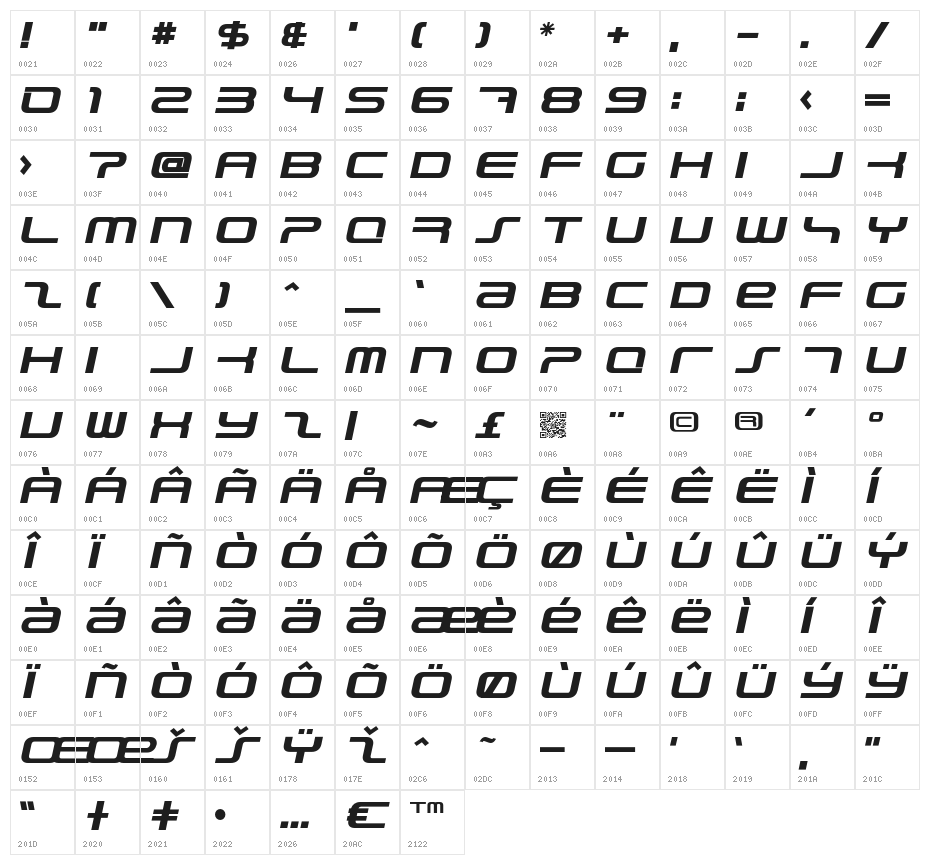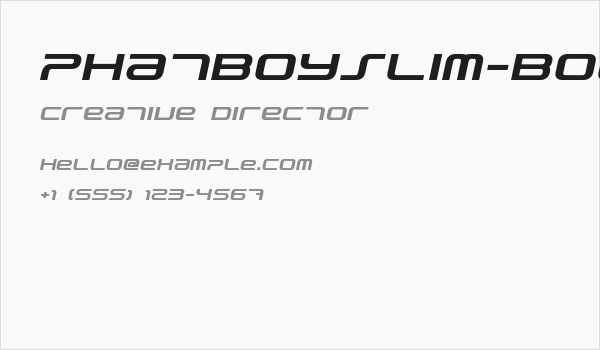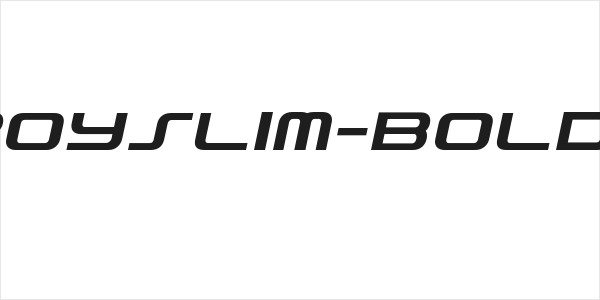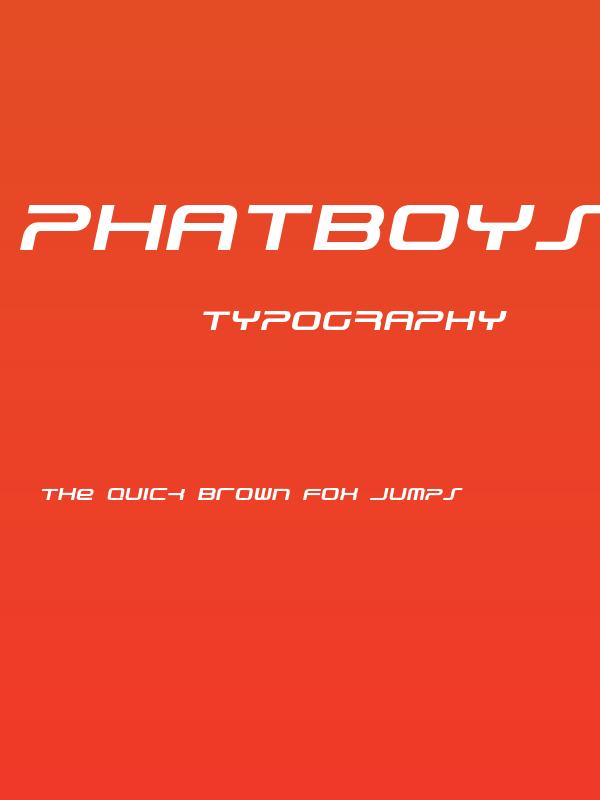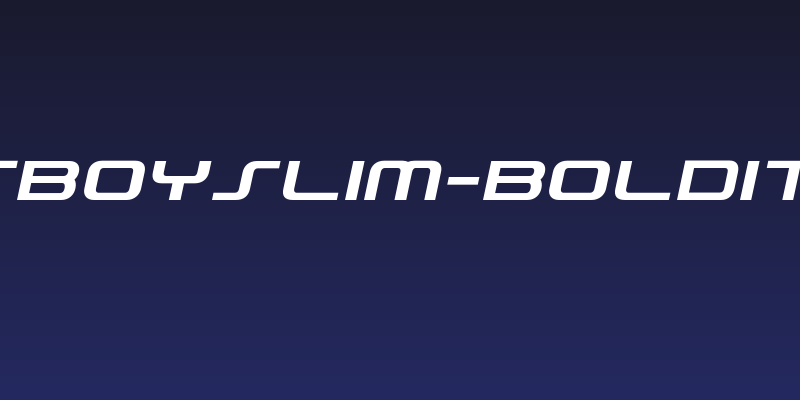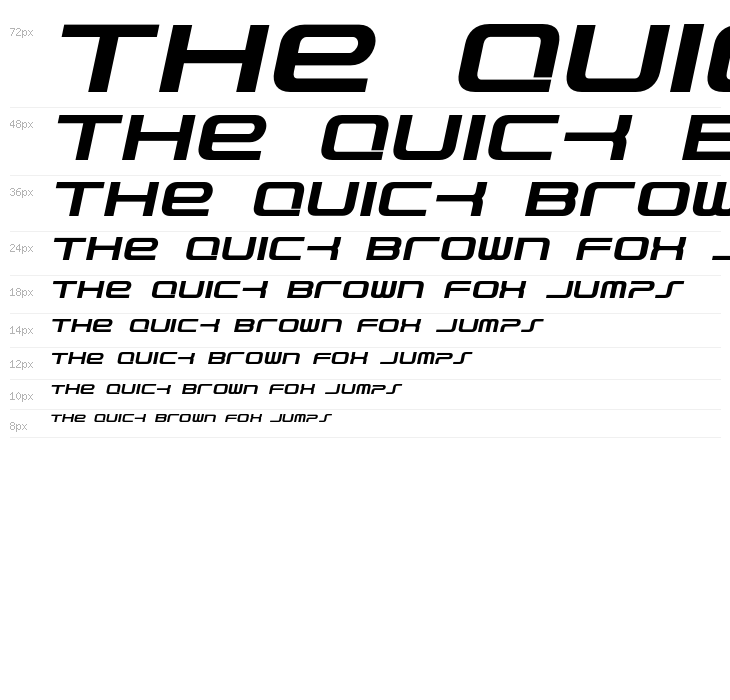
PhatBoySlim-BoldItalic Font
PhatBoySlim-BoldItalic Description
This font features a bold and italicized style with a modern, futuristic appearance. The characters are slightly slanted, giving a sense of motion and dynamism. The strokes are thick and consistent, providing a strong visual impact. The design is geometric, with sharp angles and clean lines, making it suitable for contemporary and tech-oriented projects. The uppercase and lowercase letters maintain a uniform height, contributing to a cohesive look. The numerals and special characters are designed to match the overall aesthetic, ensuring versatility across various applications.
| Use Case | Headlines, Logos, Digital interfaces |
| Proposed Projects | Ideal for tech branding, futuristic posters, video game titles, and digital interfaces. |